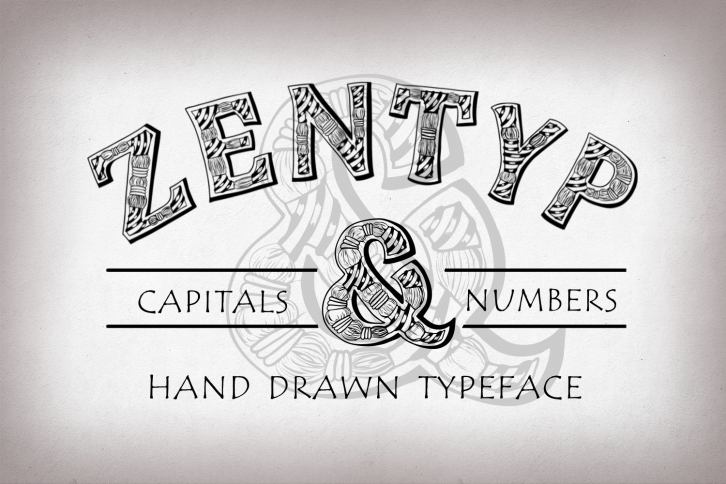
Zentyp is a trendy and unique font with an authentic style. It was designed by Digital Typeface Studio and it's a great choice for creative people who need such a font. It was released on December 26, 2018 and the file size is 12.5 MB. Zentyp will add an organic vibe to any design idea!